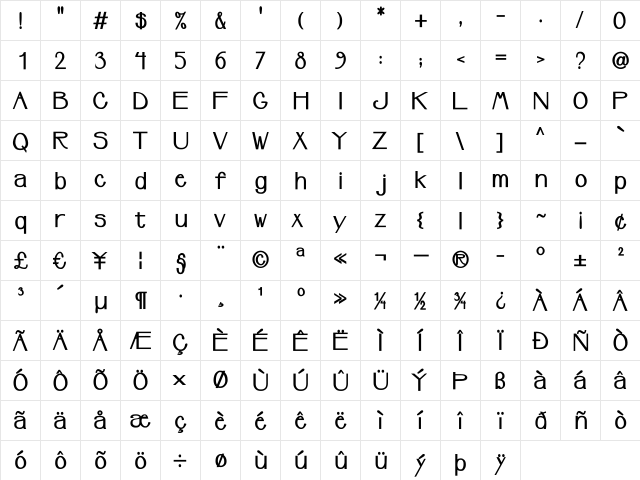
Upperclass Regular
Design Context for Upperclass Typeface
Upperclass offers clean, dependable letterforms without strong stylistic allegiance, making it a practical choice for designers who need flexibility.
Pro Tip: Pair Upperclass with a font of contrasting weight or personality to build a more expressive typographic hierarchy.